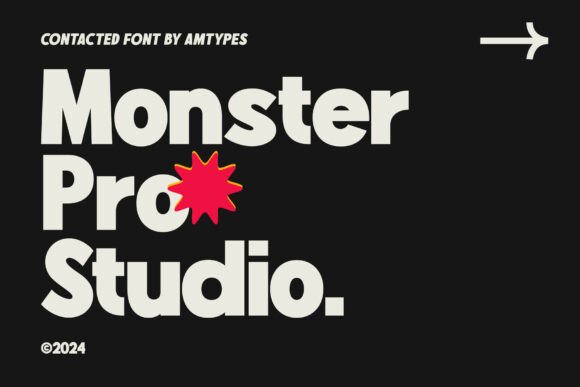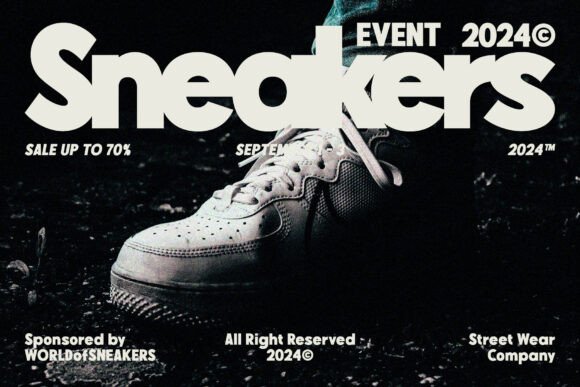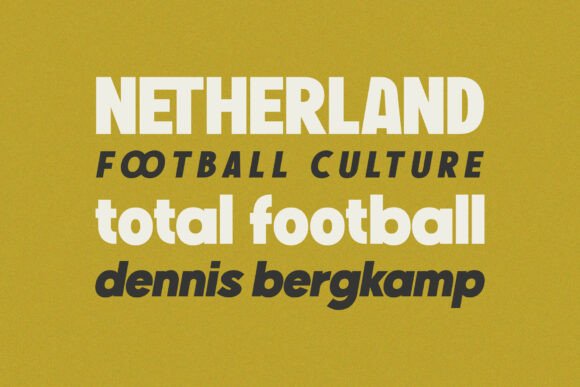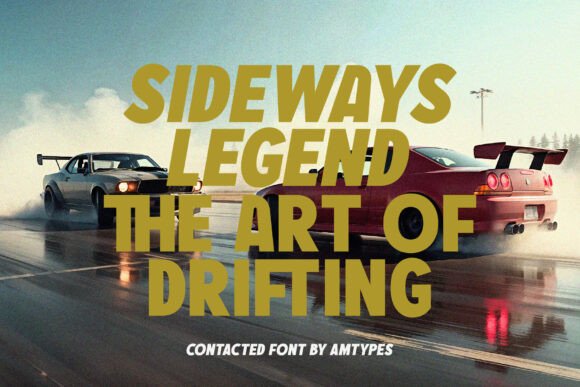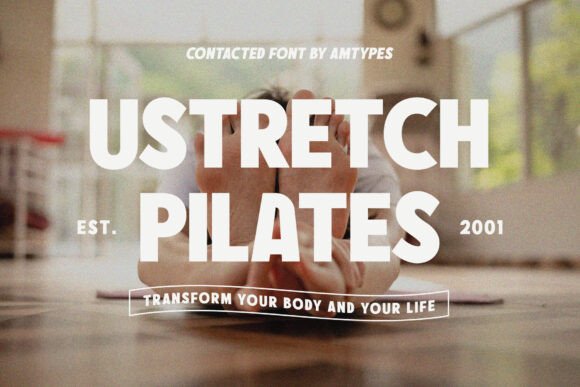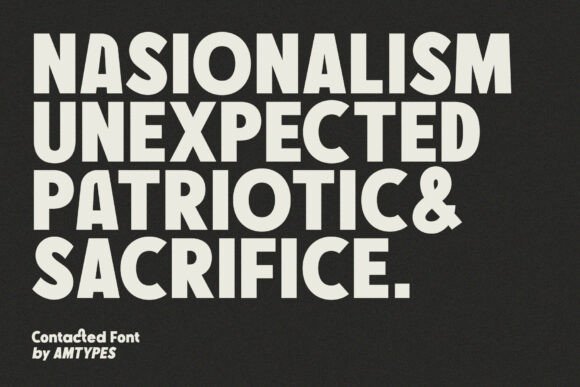
Introducing Contacted Font: A Bold and Versatile Typeface for Impactful Designs
In the world of typography, fonts play a crucial role in conveying messages, evoking emotions, and creating visual identities. For designers and crafters, finding the right font can make all the difference in bringing their creative projects to life. One such font that has been making waves in the design community is Contacted Font, a bold sans-serif typeface that exudes strength, clarity, and patriotism.
Design Characteristics of Contacted Font
Contacted Font boasts a geometric structure that gives it a modern and minimalist look. Its bold appearance makes it perfect for designs that require a commanding visual presence. The font’s clean lines, precise curves, and carefully crafted letterforms create a sense of stability and confidence, making it an excellent choice for impactful graphic designs.
One of the standout features of Contacted Font is its versatility. Its minimalist and modern qualities make it suitable for a wide range of creative projects, from posters and slogans to advertising and branding. Whether you’re designing a bold logo, a striking poster, or a compelling advertisement, Contacted Font is sure to make a lasting impression.
Key Benefits of Using Contacted Font
- Impactful Visual Presence: Contacted Font’s bold appearance ensures that your designs grab attention and make a lasting impression.
- Versatility: The font’s minimalist and modern qualities make it suitable for various creative projects, from graphic designs to digital media.
- Geometric Structure: The font’s geometric structure gives it a sense of stability and confidence, making it perfect for designs that require a strong visual foundation.
- Easy to Read: Despite its bold appearance, Contacted Font remains easy to read, making it an excellent choice for designs that require clear communication.
Use Cases for Contacted Font
Contacted Font is an excellent choice for various design projects, including:
- Posters and Flyers: Use Contacted Font to create eye-catching posters and flyers that grab attention and convey your message effectively.
- Advertising and Marketing: The font’s bold appearance makes it perfect for advertising and marketing materials, such as billboards, magazine ads, and social media graphics.
- Branding and Logo Design: Contacted Font’s geometric structure and modern look make it an excellent choice for logo design and branding projects.
- Digital Media: Use Contacted Font to create engaging digital media, such as website headers, social media graphics, and email newsletters.
Tips for Using Contacted Font Effectively
To get the most out of Contacted Font, here are some tips to keep in mind:
- Use it Boldly: Contacted Font is designed to make a statement, so don’t be afraid to use it boldly and prominently in your designs.
- Pair it with Simplicity: Contacted Font’s bold appearance can be overwhelming, so pair it with simple backgrounds and clean designs to create visual balance.
- Experiment with Colors: Contacted Font looks great in a variety of colors, so experiment with different hues and shades to find the perfect combination for your design.
Contacted Font is a powerful and versatile typeface that can elevate your designs and make a lasting impression. Its bold appearance, geometric structure, and modern look make it perfect for impactful graphic designs, while its minimalist qualities ensure that it remains easy to read and versatile. Whether you’re a designer, crafter, or simply someone looking for a bold and effective font, Contacted Font is an excellent choice.